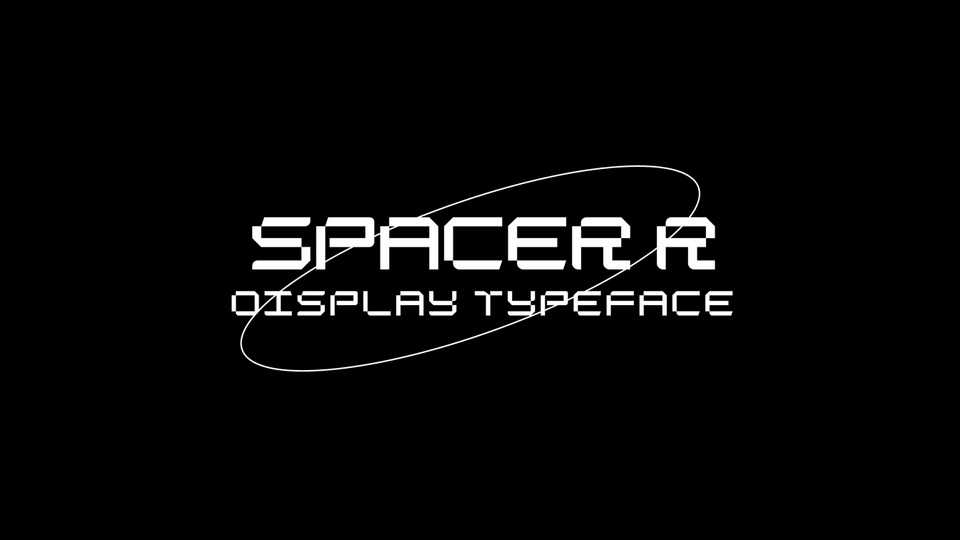
Download Spacer R font, a geometric typeface that draws inspiration from the future and technology. Spacer R font was designed to make titles and large texts stand out with a modern and sophisticated style.
Designer: eyer zero